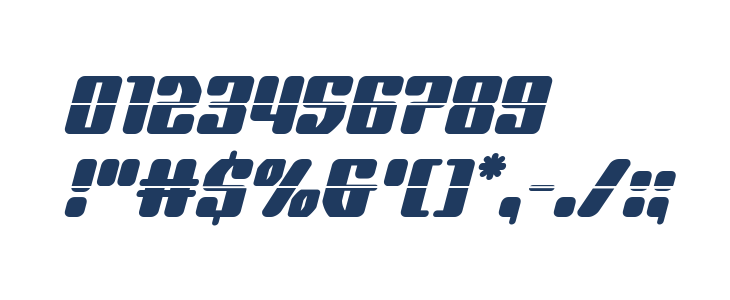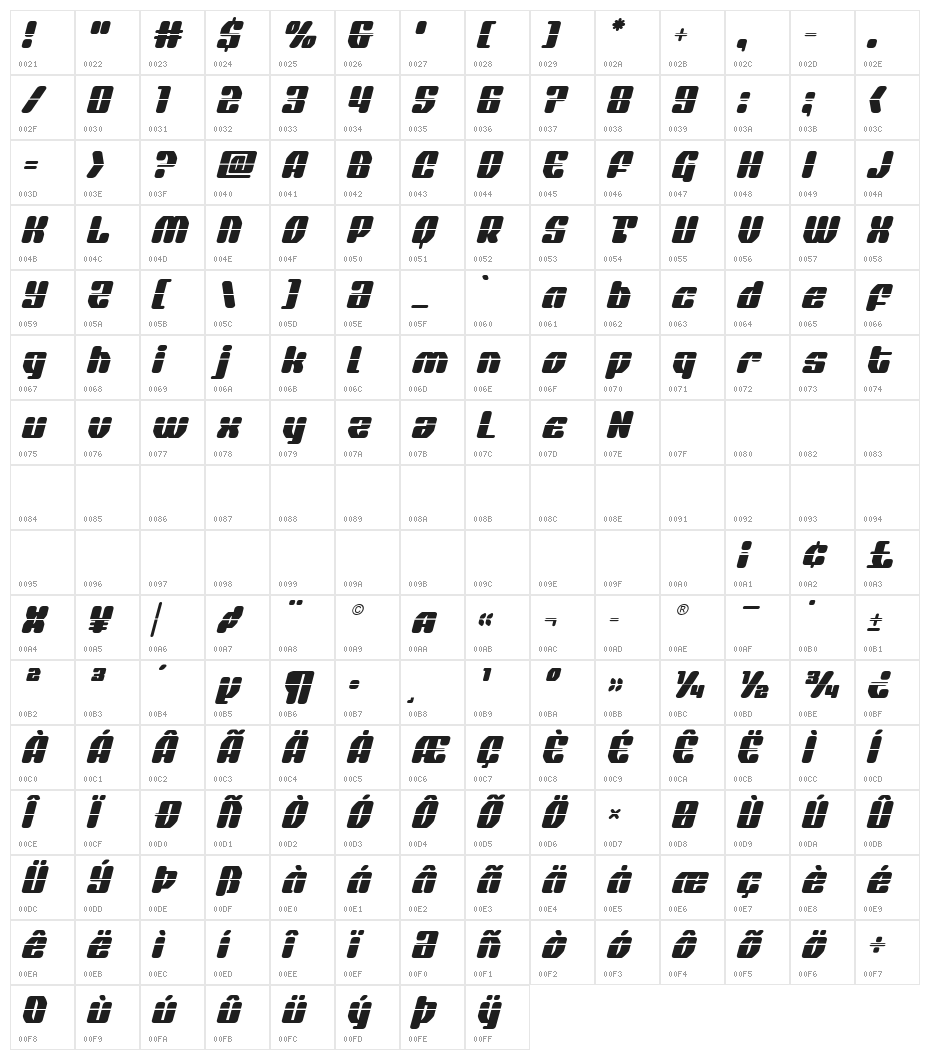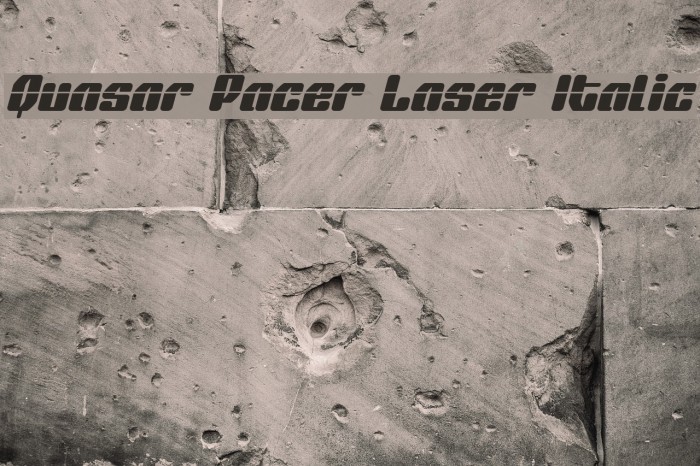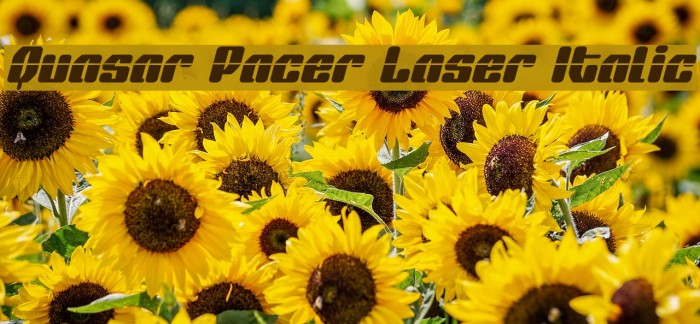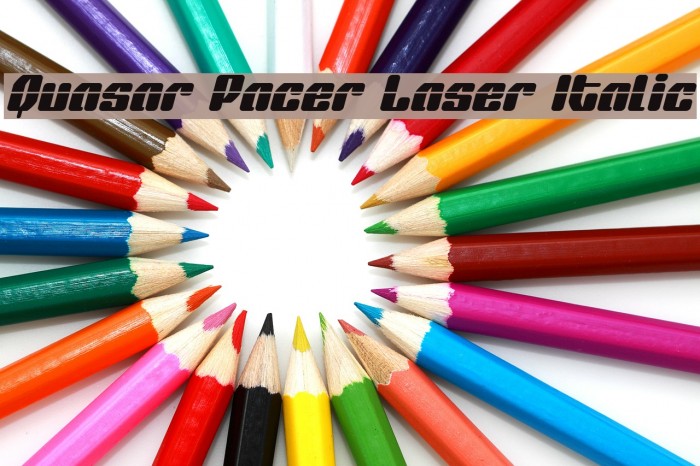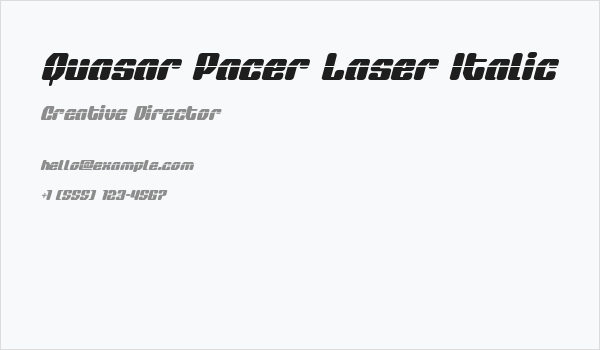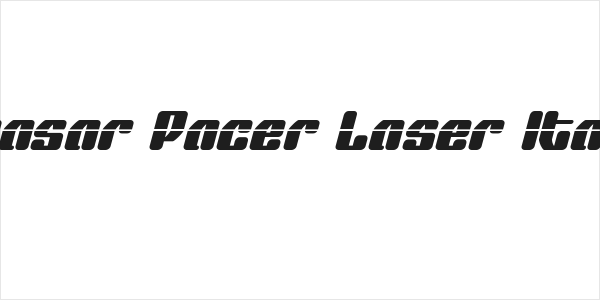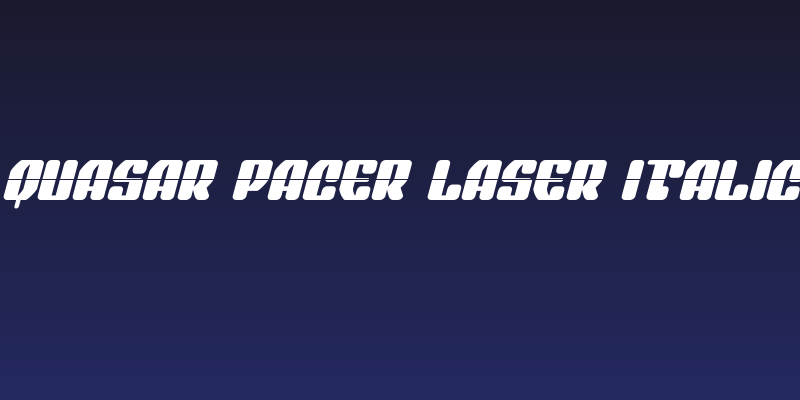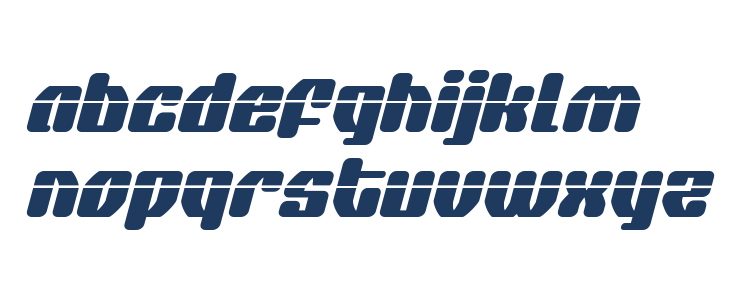
Quasar Pacer Laser Italic Font
Quasar Pacer Laser Italic Description
This font features a bold, futuristic design with a distinct italic slant, giving it a dynamic and forward-moving appearance. The characters are wide and have a strong presence, with a unique cut-out style that adds a sense of speed and modernity. The uppercase and lowercase letters maintain a consistent style, while the numbers and special characters complement the overall aesthetic. The font's boldness and geometric shapes make it ideal for projects that require a strong visual impact.
| Proposed Projects | Ideal for sci-fi themed posters, technology branding, video game titles, and futuristic event flyers. |